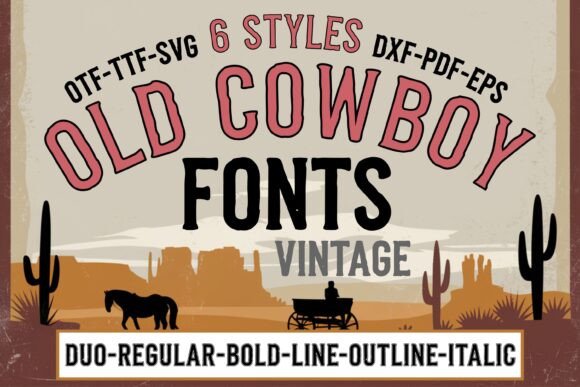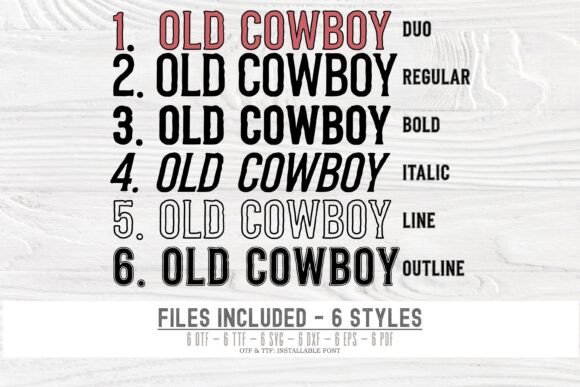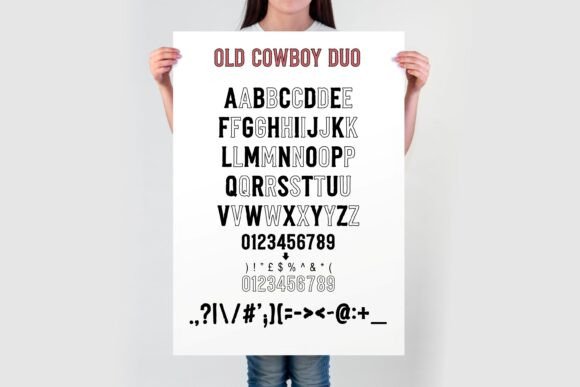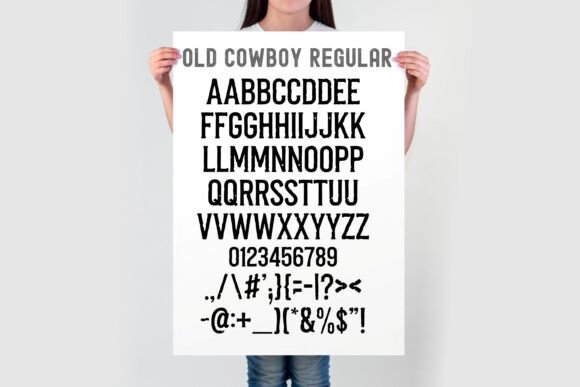
Old Cowboy Bundle Font
About the Old Cowboy Bundle Font
Welcome to the world of Old Cowboy Bundle Font, a typeface that will inspire your next great project. “Old Cowboy” is a unique distressed font that evokes the spirit of the Wild West. With rugged edges and a rustic character, it brings a bold and retro feel to any design. Perfect for rodeo, cowboy themes, vintage signs, and industrial or adventure projects. Use “Old Cowboy” for posters, t-shirts, logos, or invitations, and give your designs an authentic Old West vibe.
The “Old Cowboy” font is a Western-themed typeface that comes in six distinct styles: Duo, Regular, Bold, Line, Outline, and Italic. The standout style, Old Cowboy Duo, features bold uppercase letters and outline lowercase letters that perfectly align to create a unique two-tone font effect. This allows you to craft eye-catching designs with layered colors.